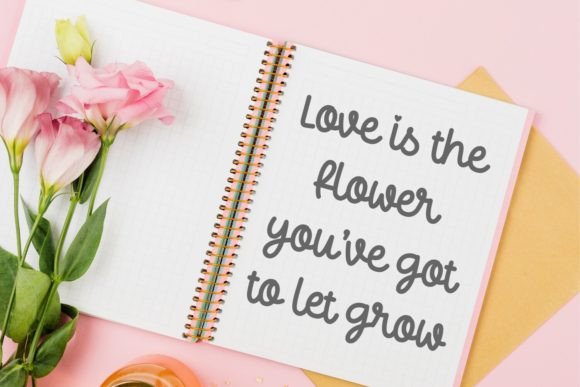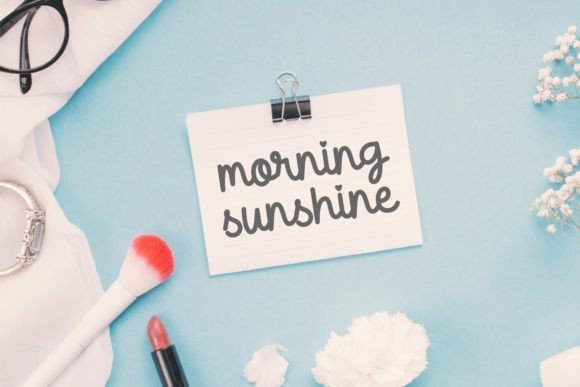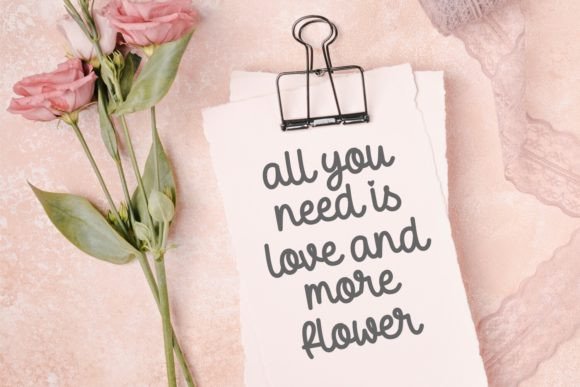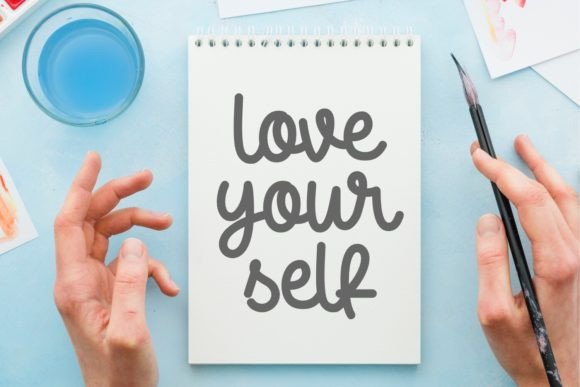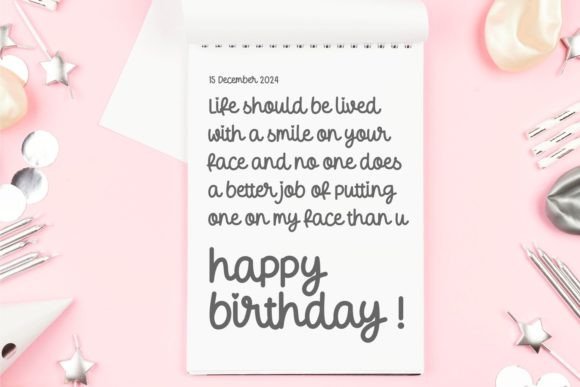
Discover the Whimsical Charm of Angela Flower Font
I’ll never forget the moment I stumbled upon Angela Flower Font while working on a whimsical branding project for a local artisan bakery. I was on a mission to find the perfect font that would capture the essence of their handcrafted treats and add a touch of magic to their packaging. As I scrolled through my font library, Angela Flower caught my eye with its lively cursive strokes and enchanting flair. It was love at first sight! 💫
• ✅ Unique, handcrafted design that adds a touch of personality to any project
• ✅ Vivacious cursive mannerism that’s perfect for logos, social media illustrations, and artisan projects
• ✅ Extensive OpenType features, including glyphs and stylistic alternates
• ⚠️ May not be suitable for very formal or traditional designs
• ⚠️ Some users may find the font a bit too playful or whimsical for their taste
The Story Behind Angela Flower Font
Angela Flower Font was designed by a talented type designer who wanted to create a font that would capture the essence of handmade crafts and add a touch of magic to digital designs. Inspired by traditional calligraphy and hand-lettering, Angela Flower is a true labor of love that showcases the beauty of human imperfection.